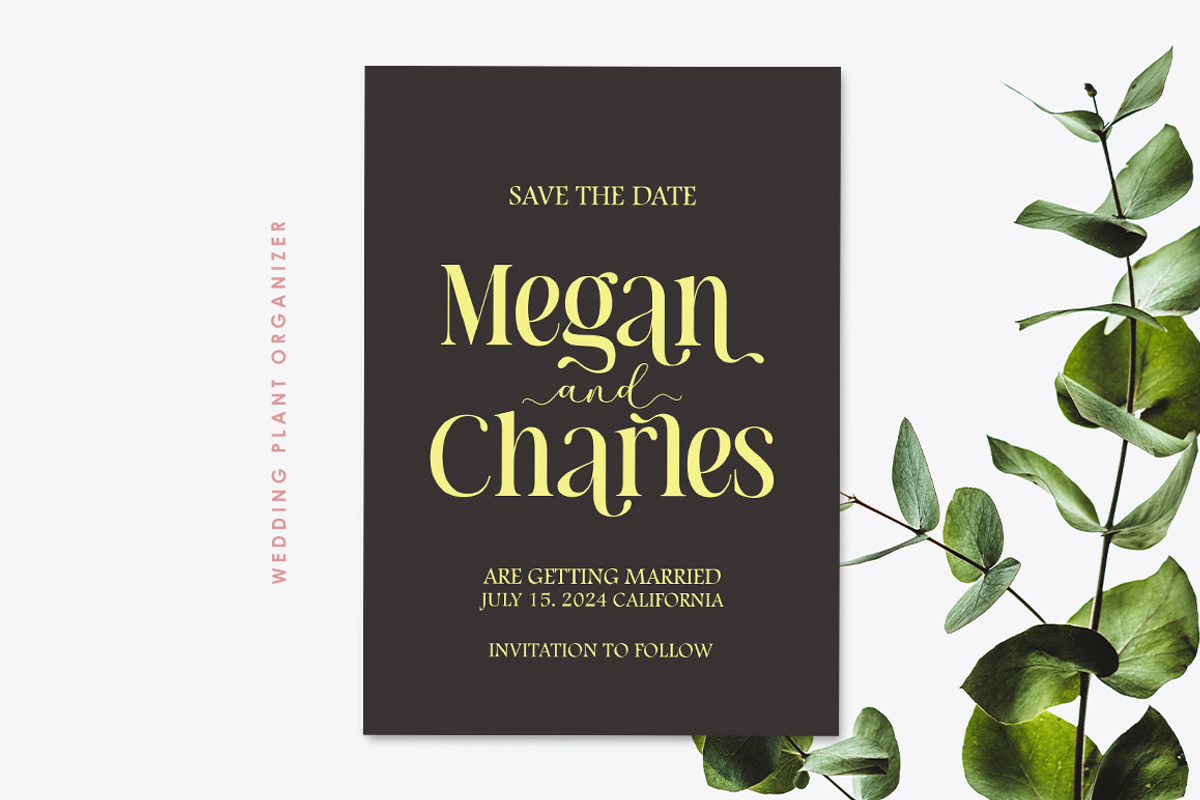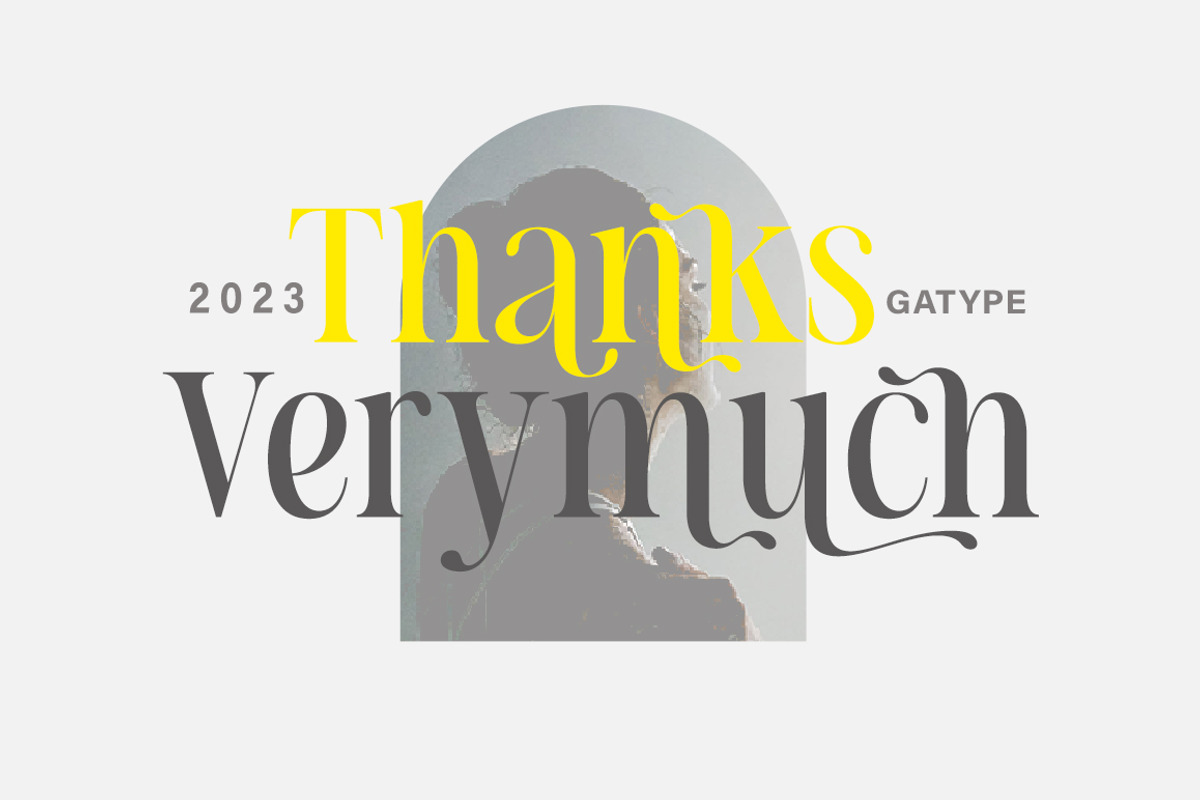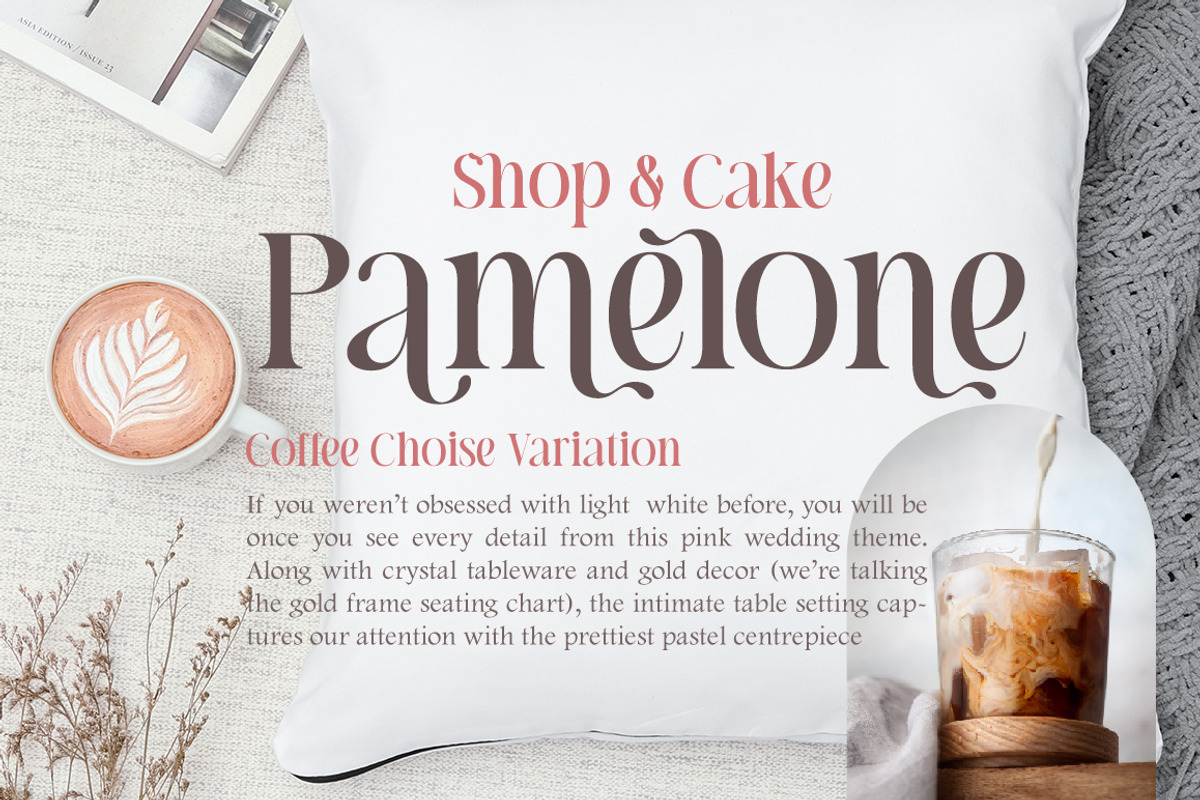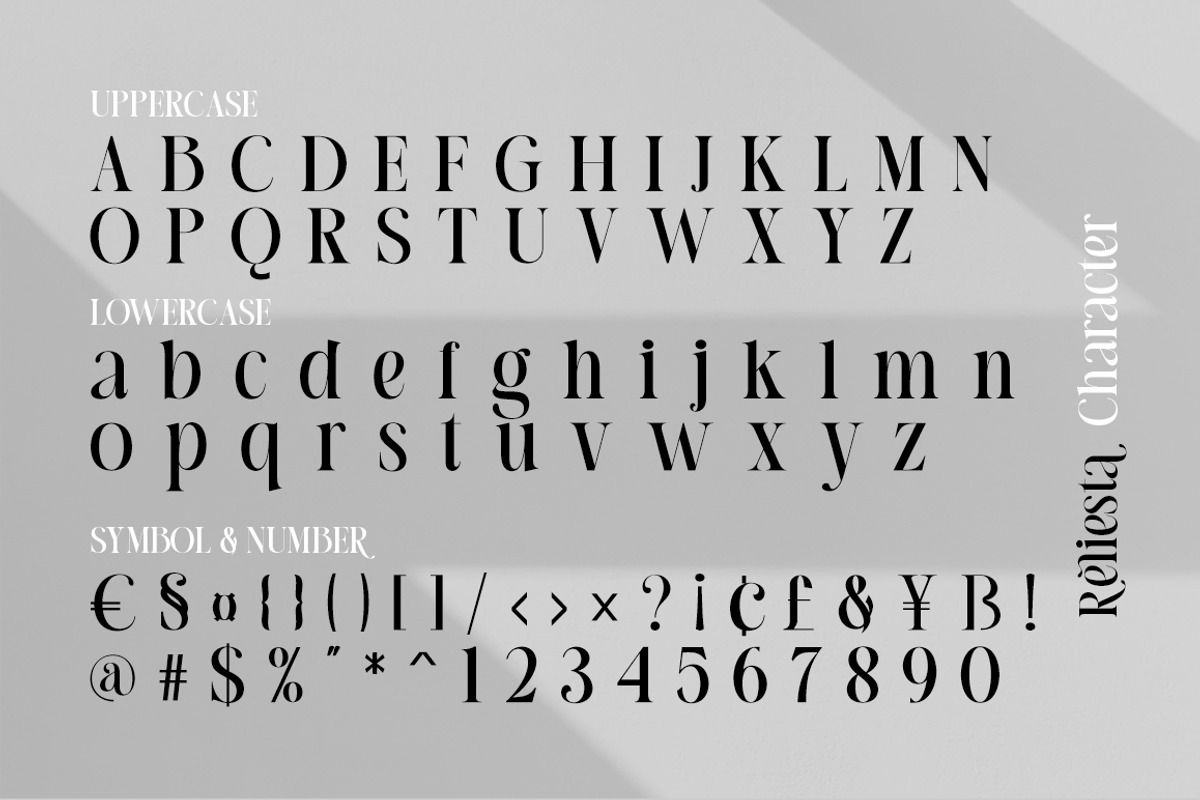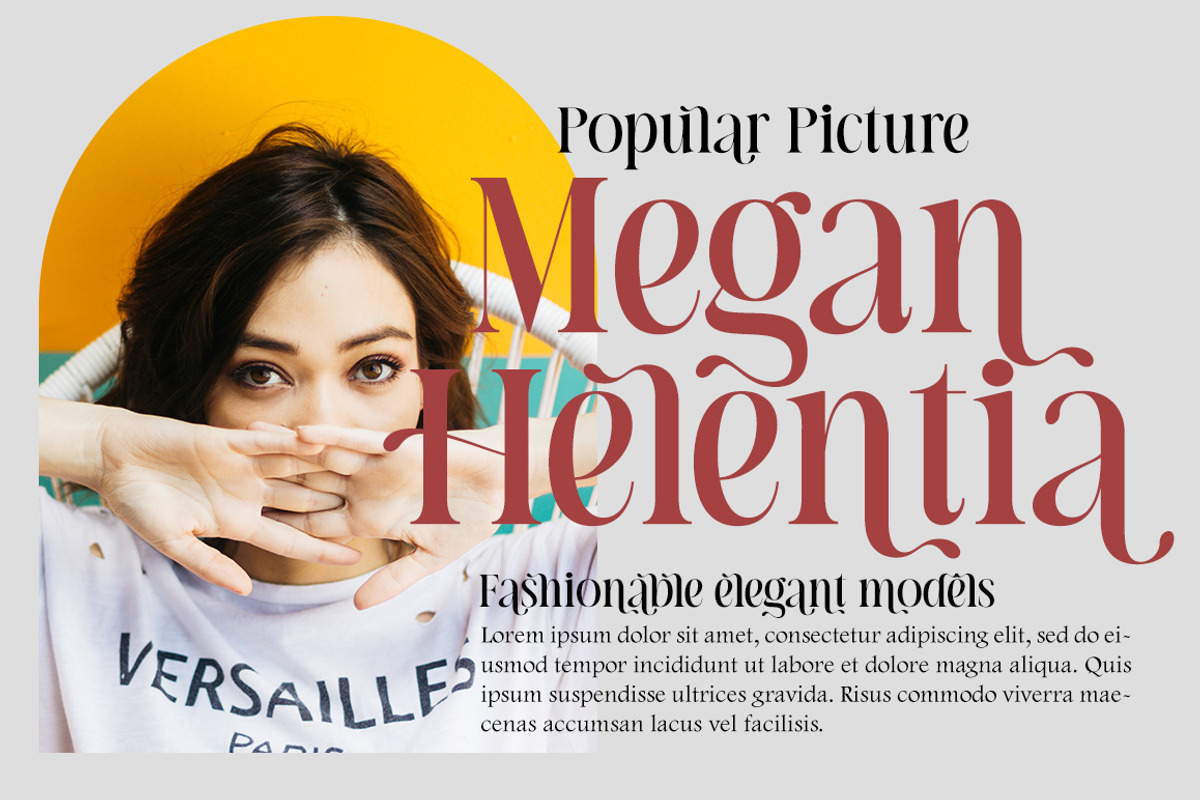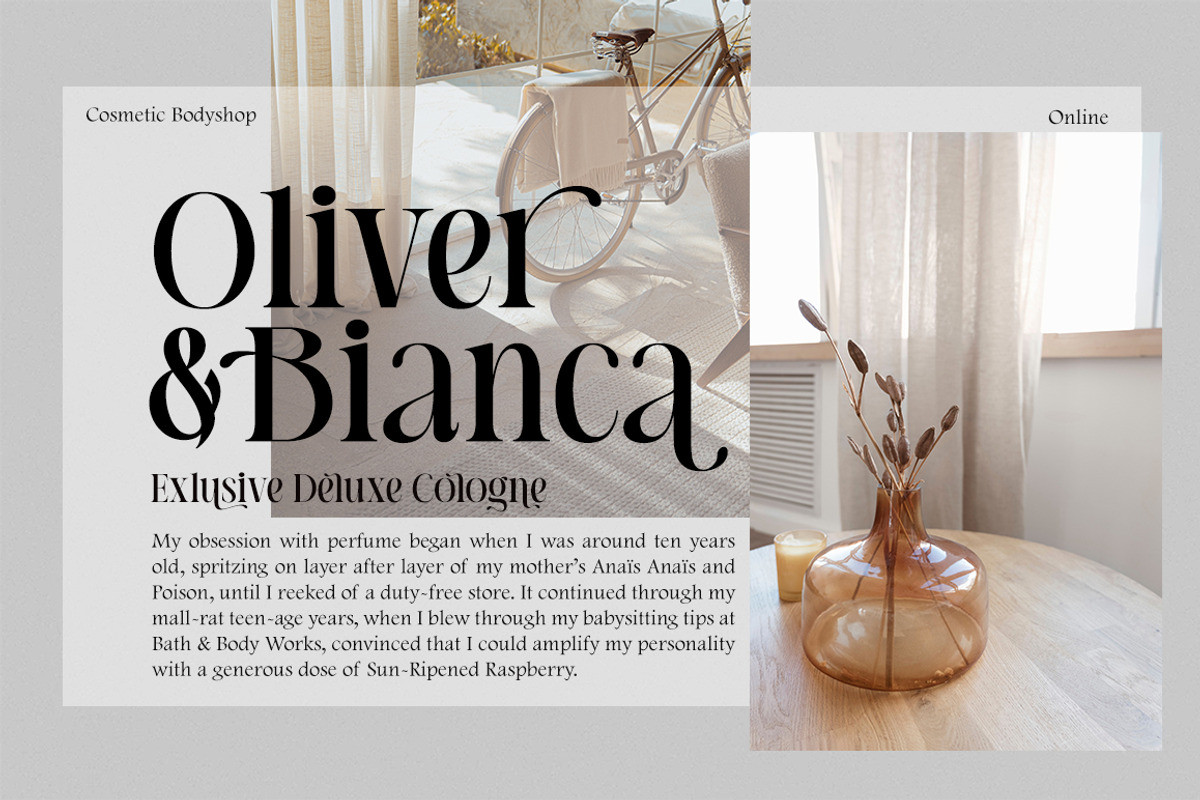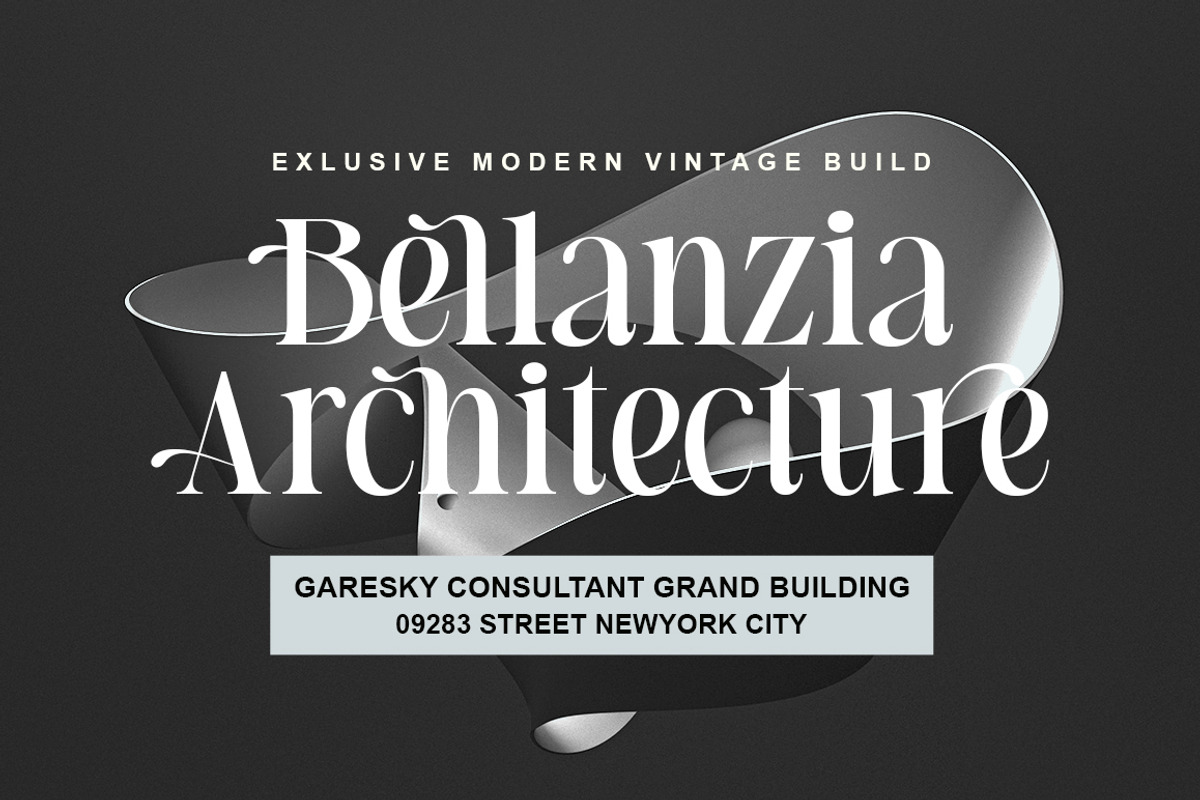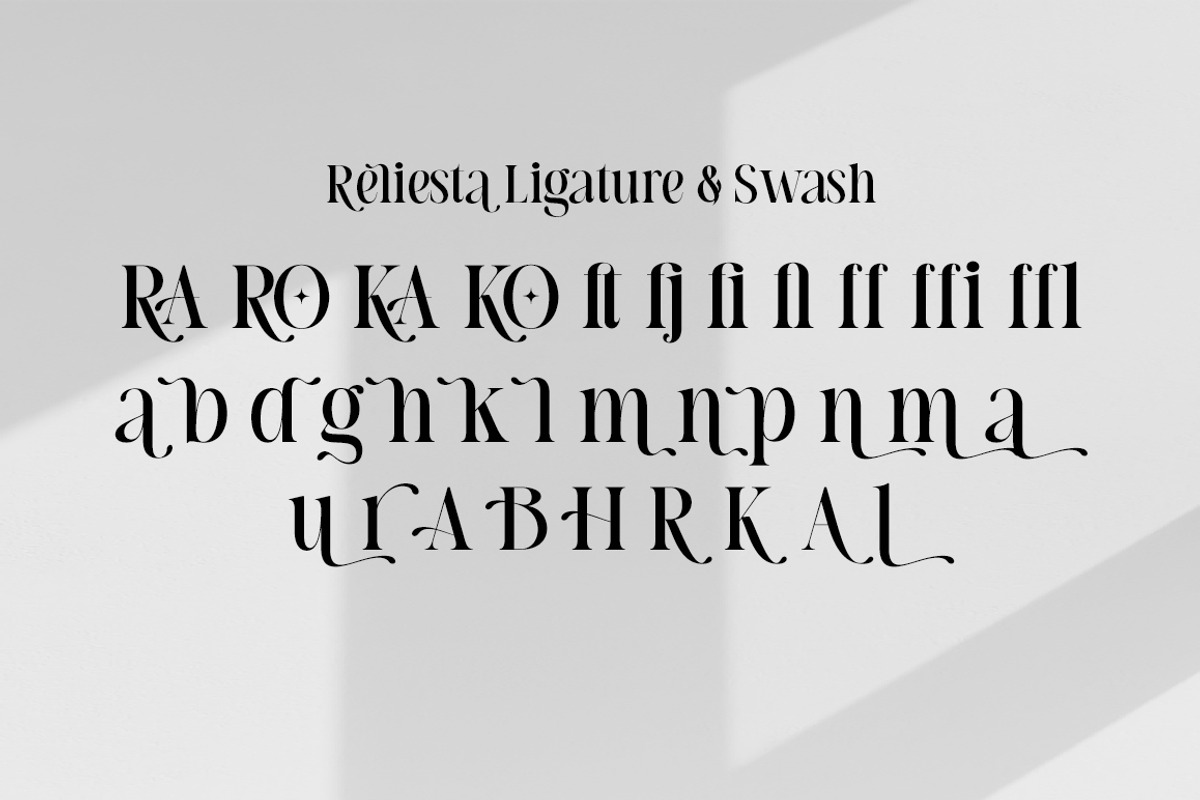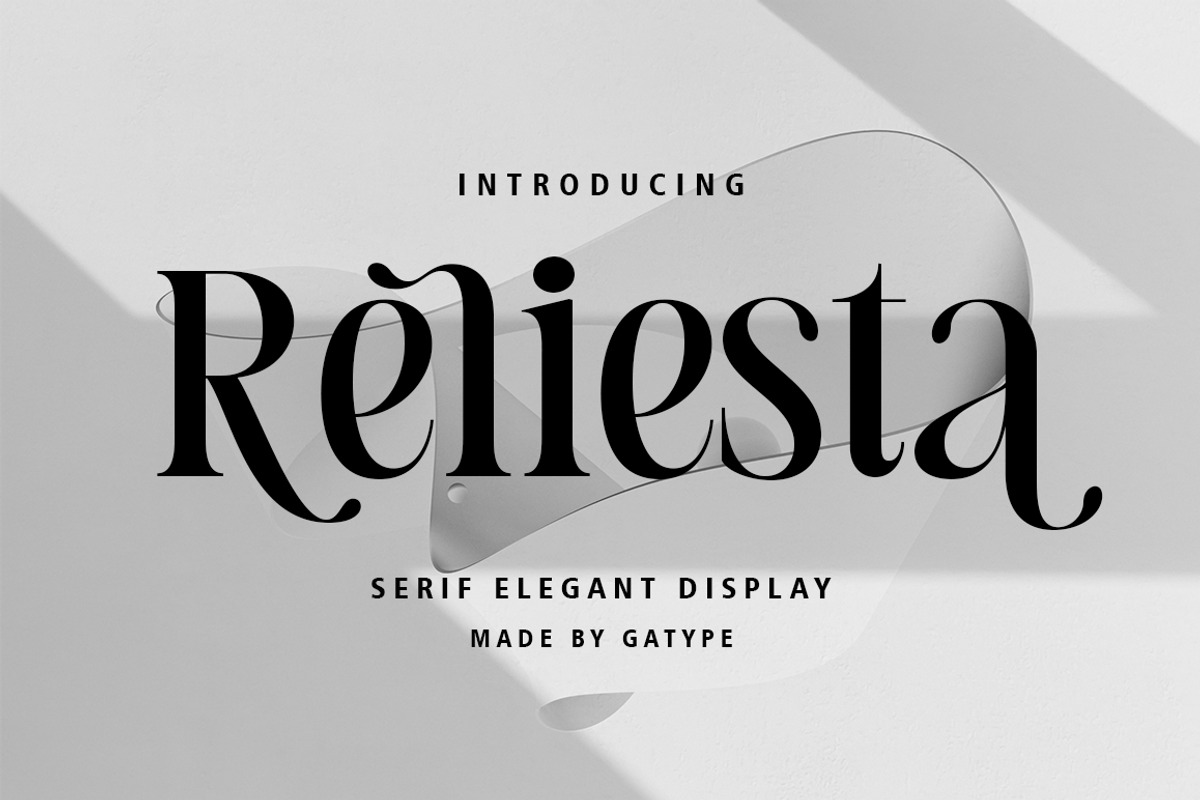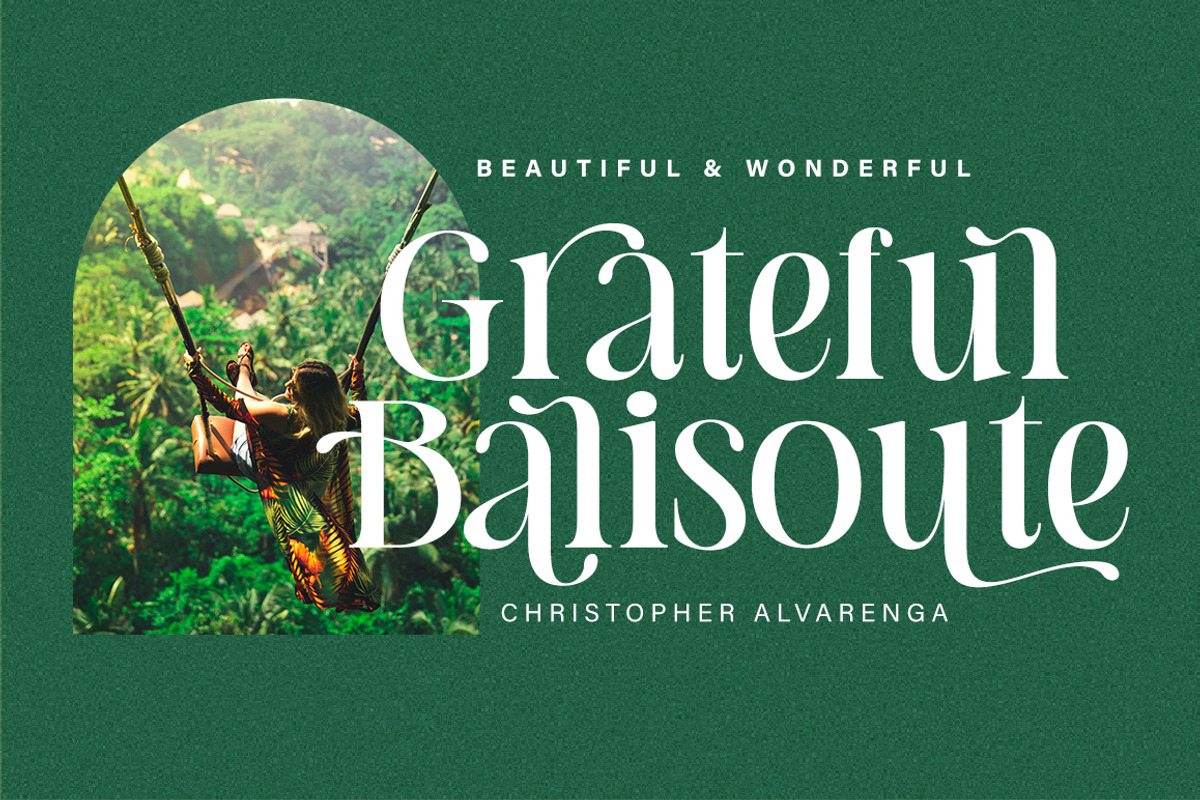
Reliesta Display
Hi Presenting Everyone We are proud to present our new font. The new Reliesta natural look with a classy and modern style makes this font look elegant, natural, stylish. Reliesta will be perfect for invitations, logos & branding, photography, advertising, watermarks, social media posts, product packaging, product designs, labels, wedding designs, stationery, special events or anything else needed to create a theme.
Reliesta is built with OpenType features and includes initial and final language styles, alternative characters for most lowercase letters, numbers, punctuation marks, alternatives, ligatures, and also supports other languages.